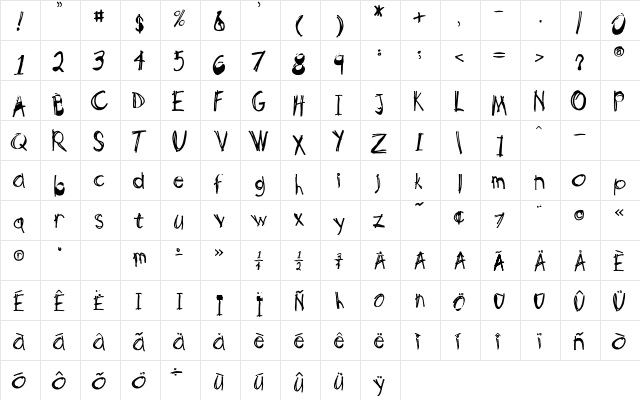
Scotty Regular
Design Context for Scotty Typeface
Scotty is a composed and adaptable typeface that performs quietly and consistently across a wide range of design contexts.